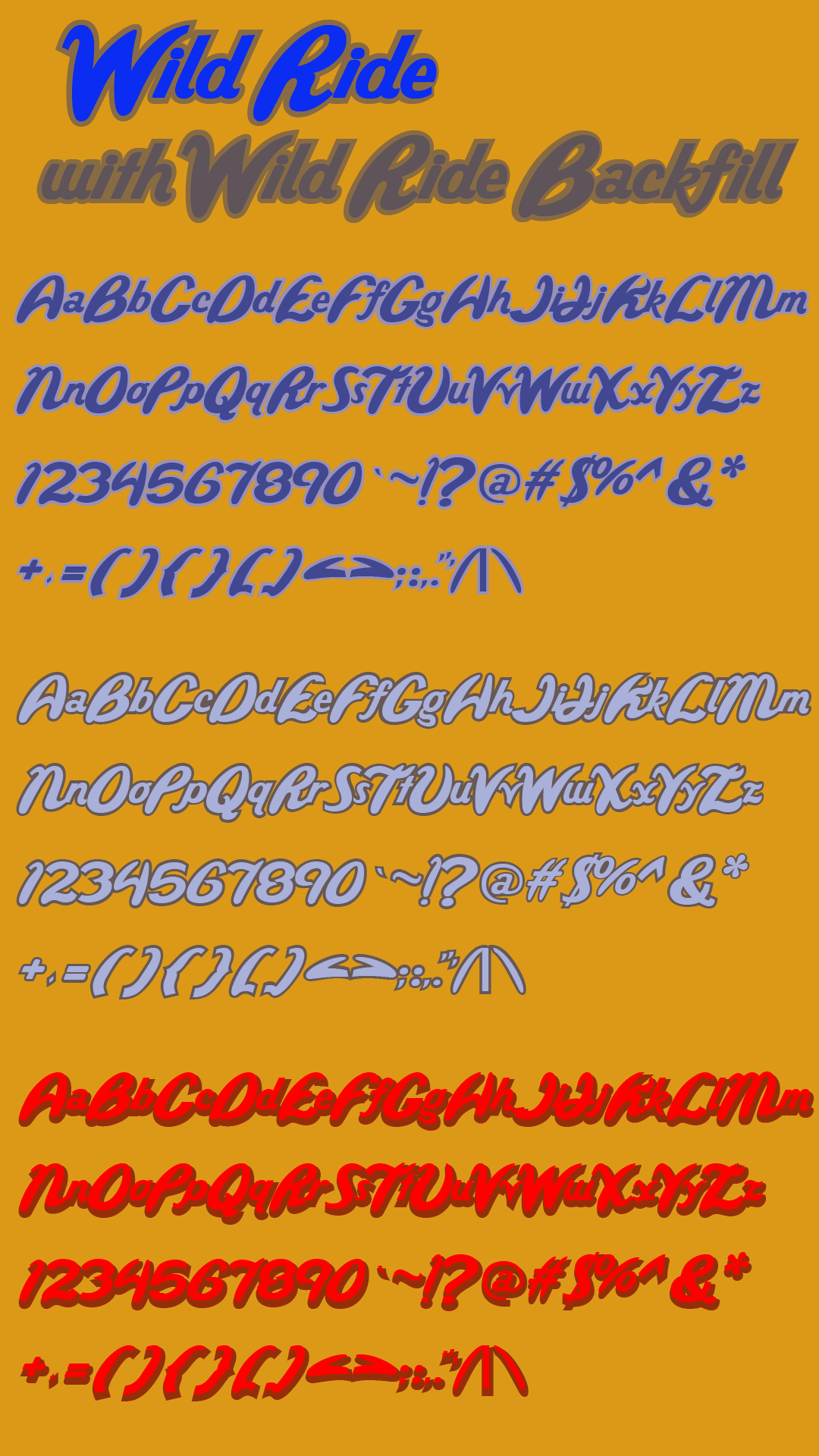
Wild Ride
:: Share Font:: Font Comments (1)1 This is a layered font, one of the eldest free layered fonts I have come across. For some reason, when I updated the archive with the new graphic, the backfill layer (bottom layer) font was sampled instead of the front font. Please refer to the sample graphic to see what this font is capable of, it is a nice font, especially for free, and even more especially for logotype. 04/12/2019 22:09:01 by Fontmaster :: Leave CommentEnter any comments about this font below. Note that we'll log your IP address on submission and ban anyone trying to spam the site. |